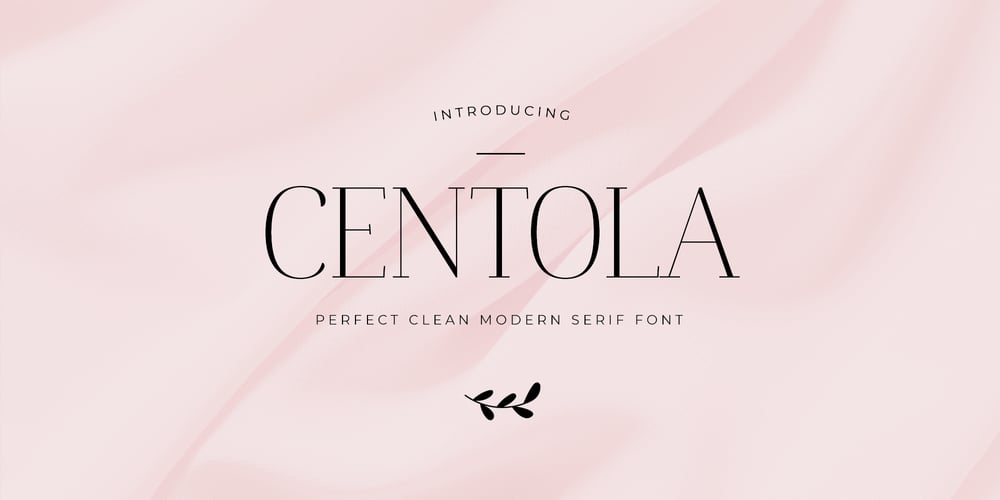
Centola
Centola font
Centola Font Family was designed by Dmitrii Chirkov and published by Supfonts. Centola contains 1 styles and family package options. Centola – a perfect clean modern serifFont is an open type with clean shapes and precise kerning.Centola Font Features:- Full Set of standard alphabet and punctuation- Ligatures- PUA Encoded – no special software needed to access extra characters- Language support: All European languages- Multilingual Characters AÁĂÂÄÀĀĄÅÃÆBCĆČÇĊDÐĎĐEÉĚÊËĖÈĒĘẼFGĞĢĠḠHĦIIJÍÎÏİÌĪĮĨJKĶLĹĽĻŁMNŃŇŅÑ OÓÔÖÒŐŌØÕŒPÞQRŔŘŖSŚŠŞȘẞTŤŢȚUÚÛÜÙŰŪŲŮŨVWẂŴẄẀXYÝŶŸỲỸZŹŽŻ aáăâäàāąåãæbcćčçċdðďđeéěêëėèēęẽfgğģġḡhħiıíîïìijīįĩjȷkķlĺľļłmnńňņñoóôöòőōøõœpþ qrŕřŗsśšşșßtťţțuúûüùűūųůũvwẃŵẅẁxyýŷÿỳỹzźžżThanks so much for checking out my shop, and please get in touch if you have any questions!Don’t forget to subscribe so you don’t miss out on the new awesome fontsDima